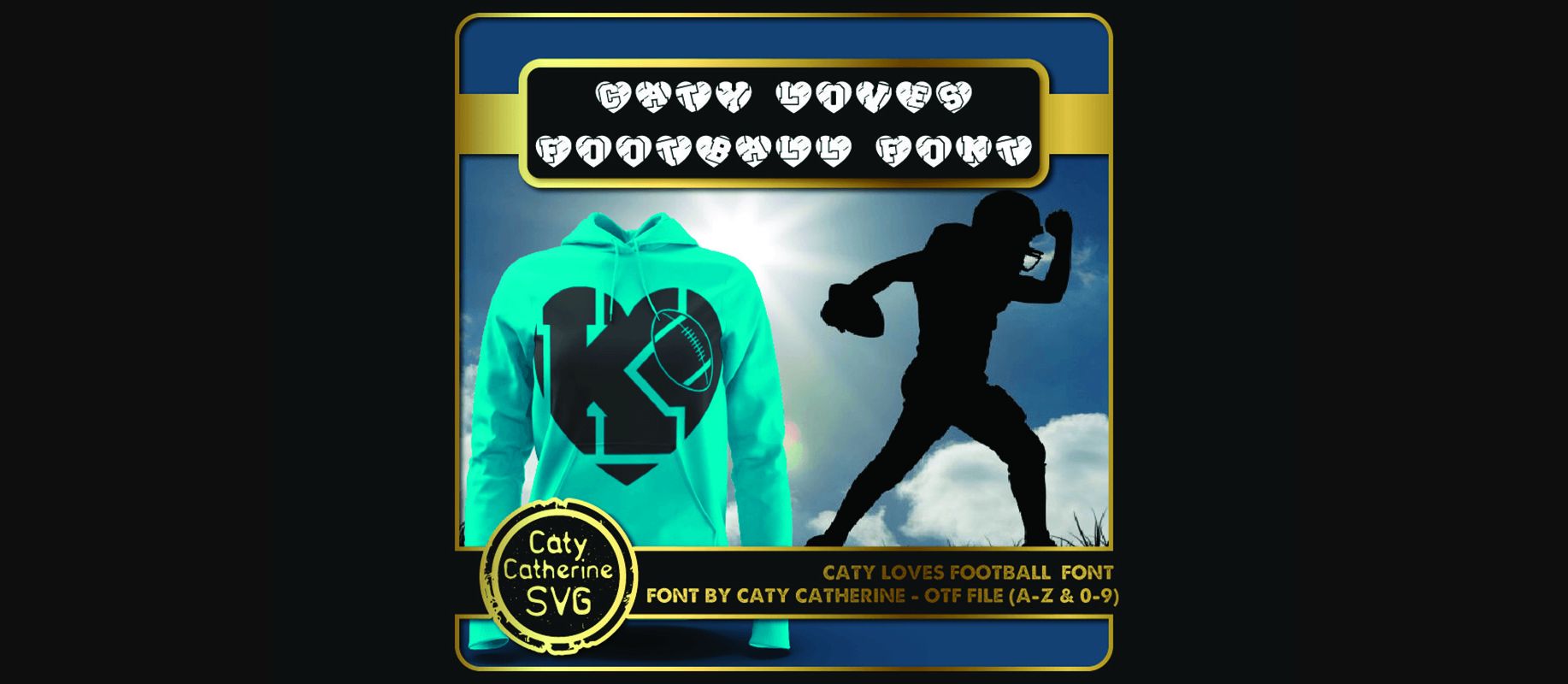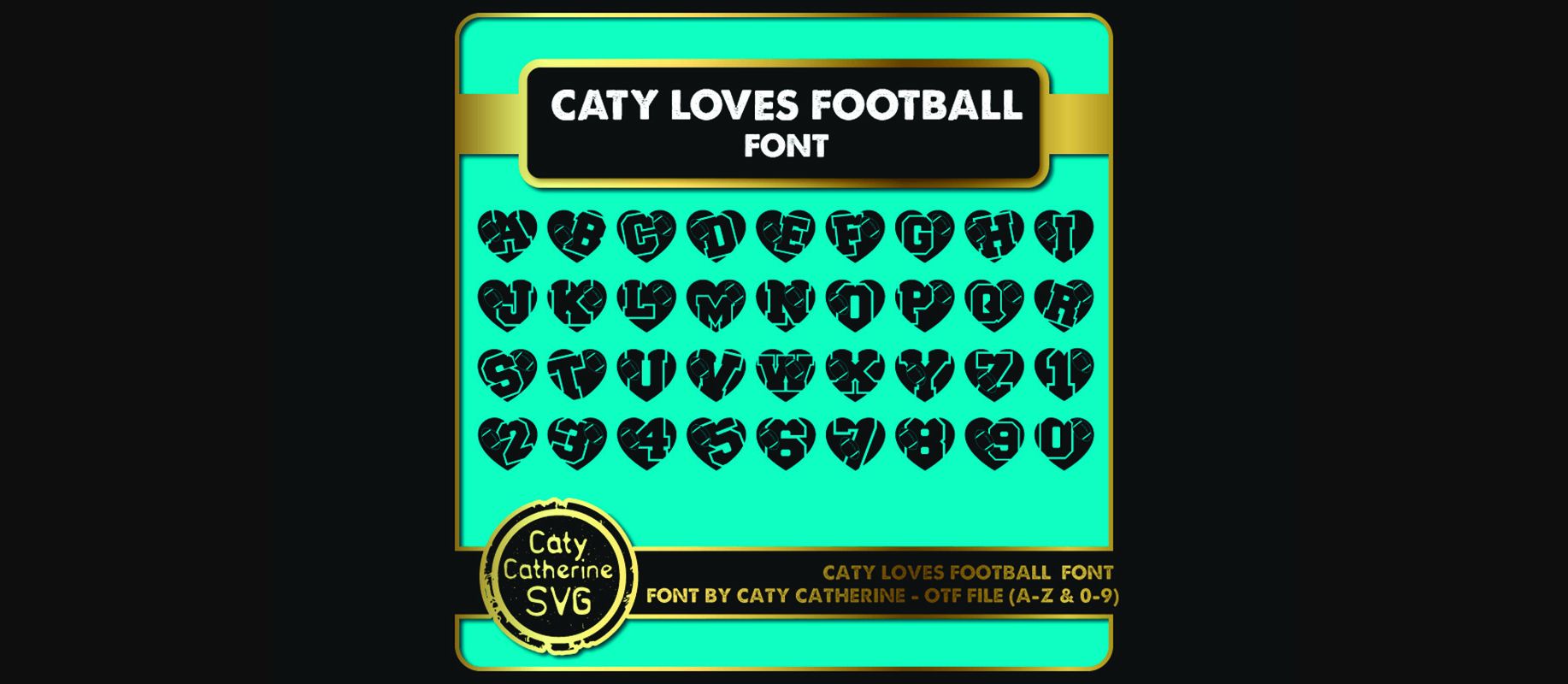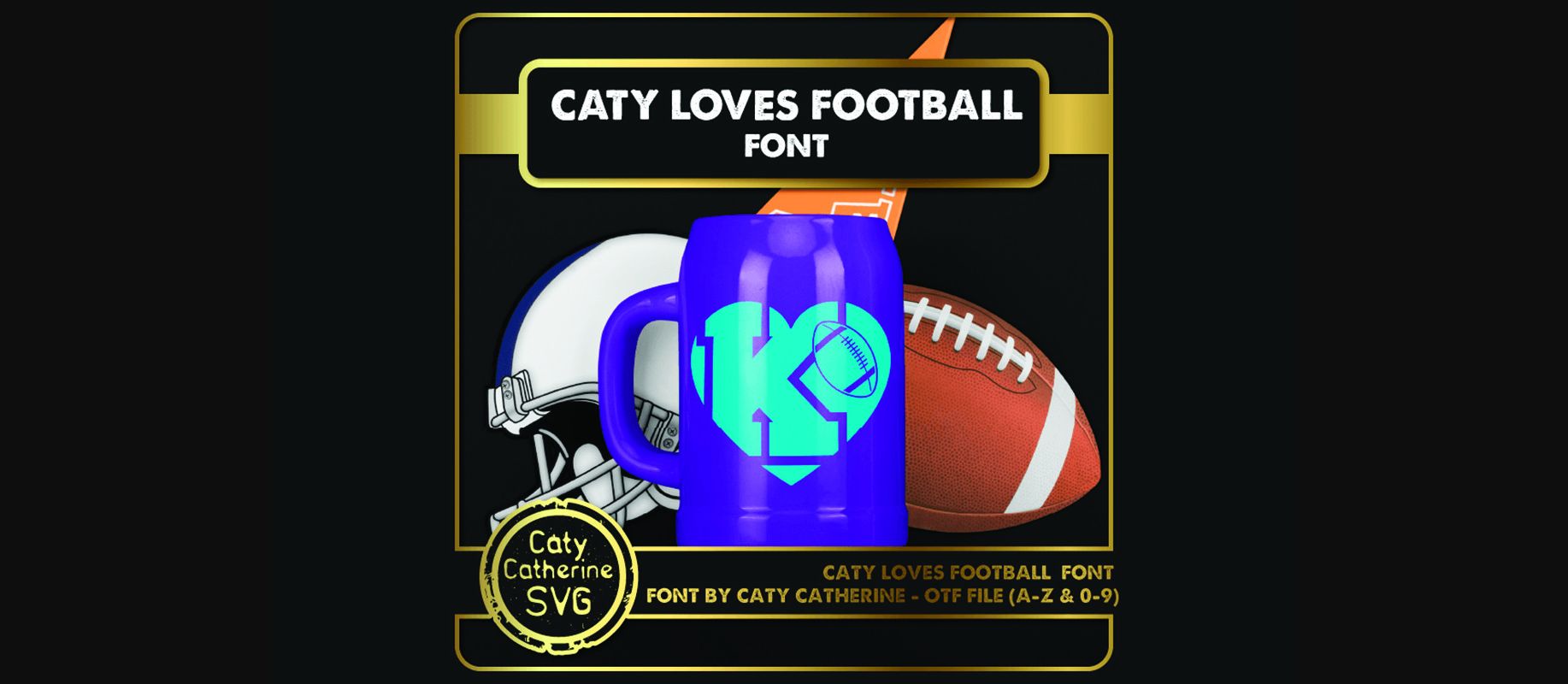
HomeDecorative FontsCaty Loves Football Font Decorative Fonts Caty Loves Football Font FacebookXPinterestWhatsApp 1 of 5 ... Caty Loves Football Font Poster 2... Caty Loves Football Font Poster 3... Caty Loves Football Font Poster 4... Caty Loves Football Font Poster 5... About Caty Loves Football Font Caty loves football is a sporty and cool decorative font. It features unique characters and some lovely football accents, perfect for sports magazines, posters, game covers, and many other crafty ideas! DOWNLOAD NOW People also explored Elegantesco Font Rocklands Original Hamidah Font Joe Amer Font Cotton Mather Font Bamboo Flute Font Cupcake Font Christmas Rockstar Font Quick Dragon Font 299 0 TagsCaty Loves Football Font Previous articleCaty Loves Baseball FontNext articleButterlove Monogram Font LEAVE A REPLY Cancel reply Comment: Please enter your comment! Name:* Please enter your name here Email:* You have entered an incorrect email address! Please enter your email address here Website: Save my name, email, and website in this browser for the next time I comment. Personal Use Free Vexler Slip Personal Use Free Read more about this font Yesstea Personal Use Free Read more about this font Callisa Script Personal Use Free Read more about this font Pattern Personal Use Free Read more about this font BLOG How to Install and Use Fonts on Windows, macOS, and Web Projects How to Install and Use Fonts on Windows, macOS, and Web Projects Fonts are a crucial part of design and branding. Whether you’re designing a... Elegant Wedding Invitation Fonts – Handwritten & Script Fonts Top 7 Google Fonts Alternatives for Faster and Privacy-Friendly Web Design (2025) 5 Fonts That Will Dominate Design Trends in 2026